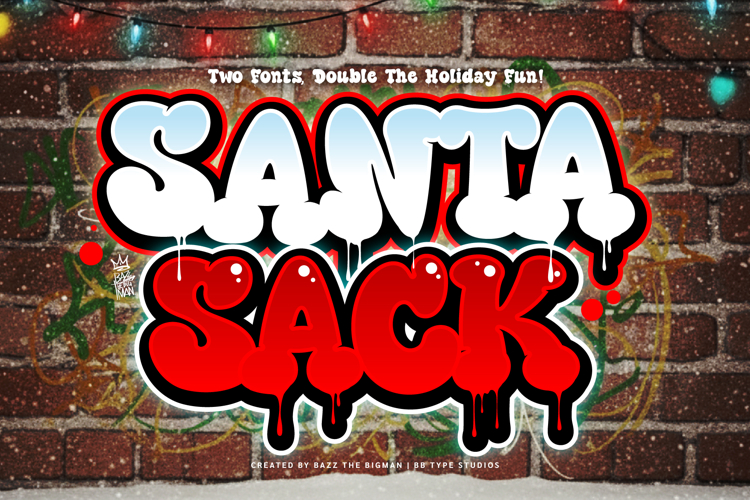
Immerse yourself in holiday cheer with Santa Sack, a captivating bubble-style display font. Echoing the inviting warmth of festive yuletide goodies and the radiant twinkle of holiday lights, Santa Sack instills a delightful vim and nostalgic vibe in your designs. It's a versatile typographic wonder, perfect for enhancing holiday packaging, adorning coffee cup labels, gracing Christmas card messages, adding a pop to posters or even branding for bakeries. Santa Sack is a font exuding bold, voluptuous, and molten charm, reminiscent of a sweet, retro, holiday memory.